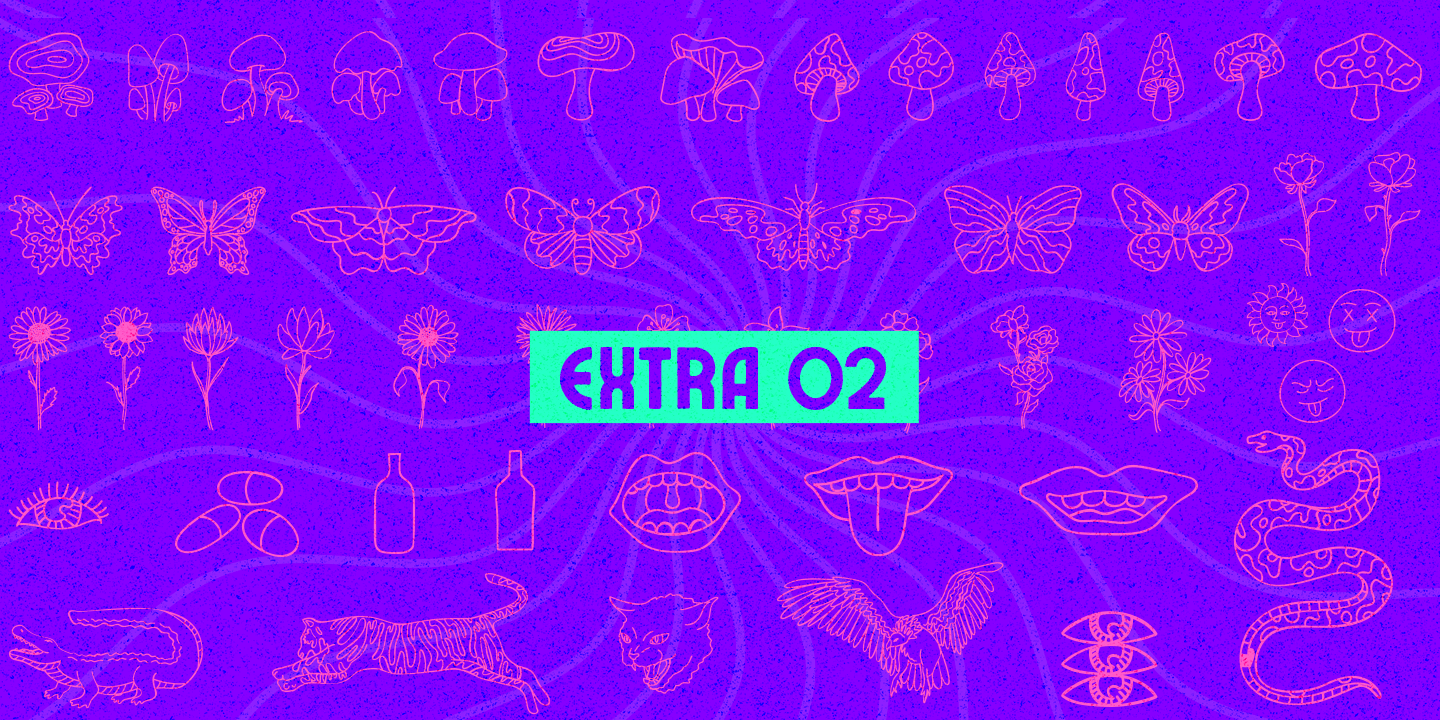
Lucidity Free Download
Lucidity Font Free Download
Lucidity Font is perfect for crystal-clear corporate communications, transparent business presentations, enlightening educational materials, clarity-focused healthcare branding, precision engineering documentation, clear scientific publications, honest financial reports, straightforward legal documents, mindful wellness center signage, illuminating technology interfaces, lucid philosophical texts, and transparent non-profit communications.
What makes Lucidity Font so exciting is its exceptional clarity and transparent design philosophy that perfectly embodies the principles of clear communication and intellectual precision. This remarkable typeface features pristine letterforms, optimal spacing, and crystalline readability that instantly communicates honesty, transparency, and mental clarity, making it ideal for organizations and projects that prioritize clear thinking, honest communication, and the powerful impact of absolute visual and conceptual transparency.
The Lucidity Font family typically includes multiple weight variations with enhanced legibility features, extended character sets, and optimized rendering that ensures perfect clarity across all communication platforms and reading environments.
Whether you're creating educational content or developing transparent corporate communications, Lucidity Font Free Download delivers the ultimate typography solution for projects requiring absolute clarity and intellectual transparency. This versatile font masterfully combines visual precision with conceptual clarity, making it an essential tool for designers working on projects that demand clear communication, honest presentation, and the compelling power of transparent, easily understood visual messaging that respects reader intelligence and promotes genuine understanding.